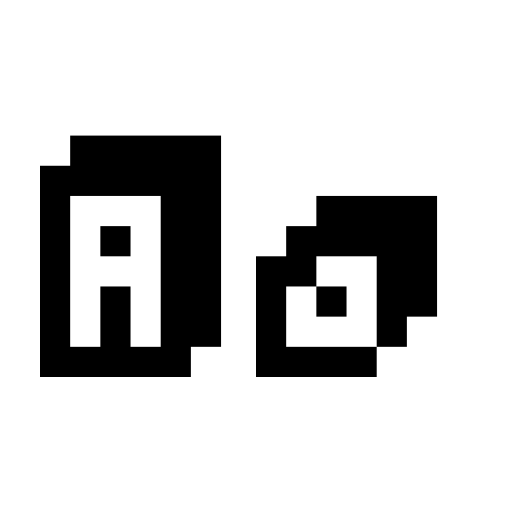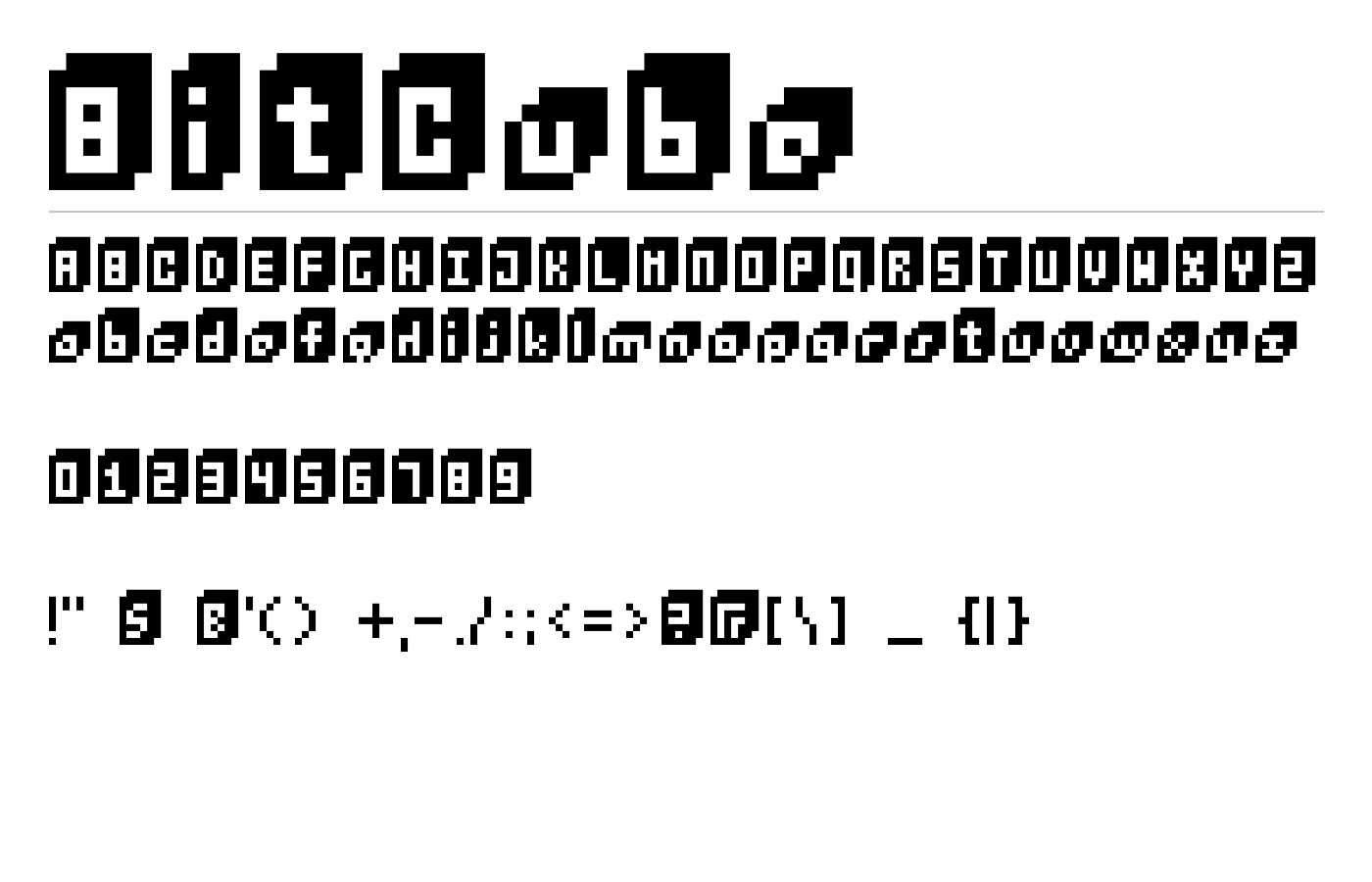
BitCube is a bold, blocky pixel-style sans serif font that captures a retro digital vibe with its sharp, geometric edges and uniform stroke width. Its condensed letterforms and large x-height make it highly legible for display uses, evoking the feel of vintage video games or tech interfaces. Perfect for logos, posters, and digital projects seeking a nostalgic, futuristic look.
BitCube Font